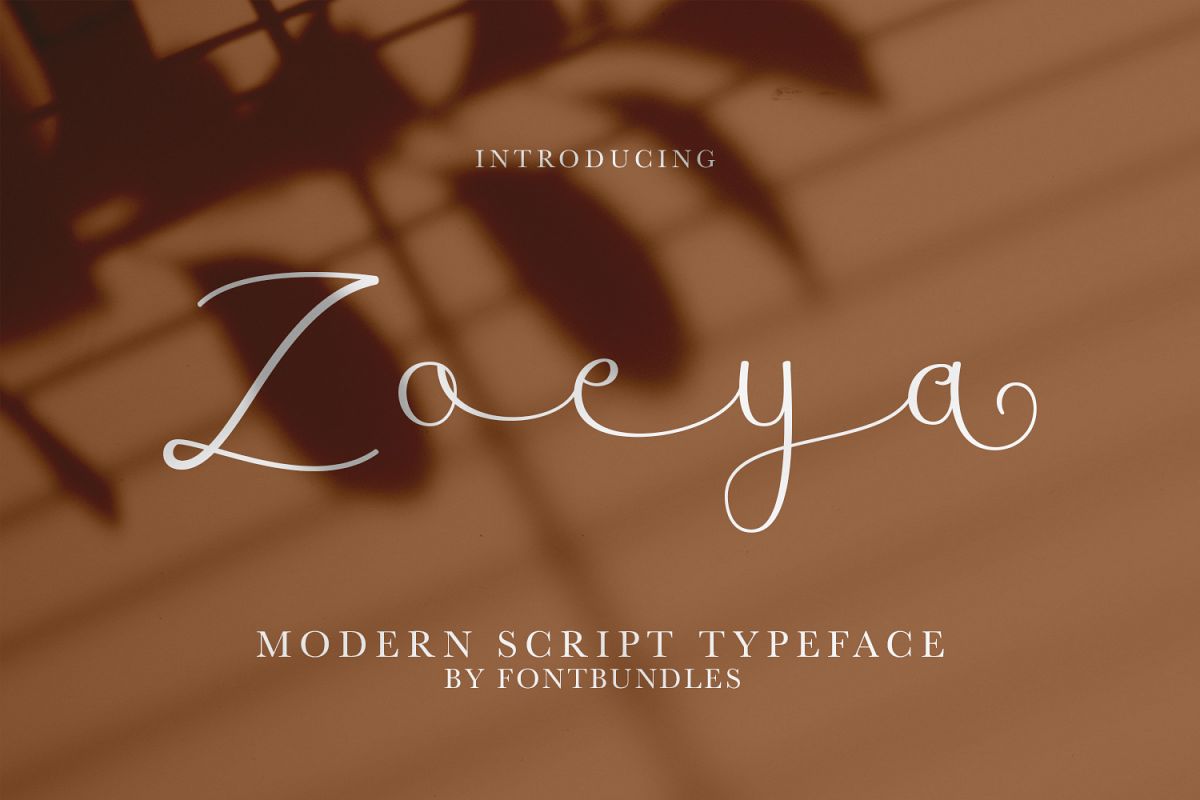
Zoeya is a fancy modern script typeface. Perfect for letters used at weddings, welcome wedding, wedding invitation, wedding card, namecard, and manymore.